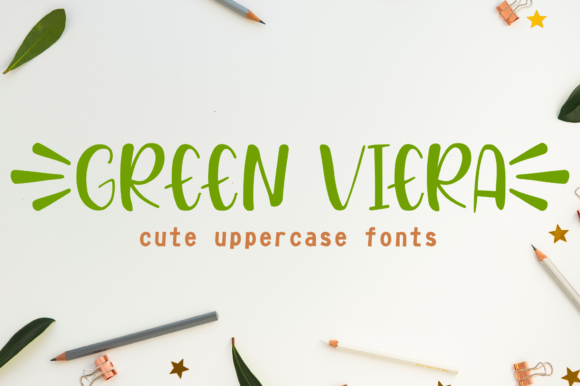
The Green Viera Font: A Relaxed and Cute Handwritten Delight
Have you ever been in the middle of a design project, and suddenly, you just can’t seem to find the right font? I recall a particularly frustrating experience while working on a wedding invitation design. My client wanted something that felt authentic, yet elegant. I scoured the internet, tried out dozens of fonts, but nothing seemed quite right. That was until I stumbled upon the Green Viera Font. ✨
Green Viera is a relaxed and cute handwritten font that instantly captured my heart. Its authentic feel and charming personality made it the perfect fit for my client’s wedding invitation. And, I must say, I’ve been hooked ever since. In this article, I’ll share with you what makes Green Viera so special, its features, and how you can make the most of it in your designs.
- ✨ Authentic feel: Green Viera has a wonderfully genuine, handwritten quality that makes it perfect for designs that require a personal touch.
- ✅ Versatility: This font can be used for a wide range of projects, from wedding invitations and stationery to social media posts and greeting cards.
- 💕 Cute and playful: Green Viera has a delightful, carefree personality that’s sure to bring a smile to your face.
While Green Viera is an amazing font, there are a few things to keep in mind: ⚠️
- 🤔 Limited use in formal contexts: Due to its playful nature, Green Viera might not be the best fit for very formal or corporate designs.
- ⚠️ Some letters may require adjustment: As with any handwritten font, you might need to tweak some letters to ensure proper spacing and alignment.
A Practical Guide: Using Green Viera in Your Designs
Canva also supports OpenType features, so be sure to explore the font’s stylistic alternates and glyphs to add more personality to your design.
The Designer Inspiration Behind Green Viera
Green Viera was designed with the intention of creating a font that feels both authentic and charming. The designer aimed to capture the essence of handwritten letters and infuse them with a modern twist. The result is a font that feels both nostalgic and fresh.
Q: What type of projects is Green Viera best suited for?
A: Green Viera is perfect for designs that require a personal touch, such as wedding invitations, stationery, social media posts, and greeting cards.
Q: Does Green Viera support OpenType features?
A: Yes, Green Viera supports OpenType features, including stylistic alternates and glyphs. This allows you to add more personality and variety to your designs.